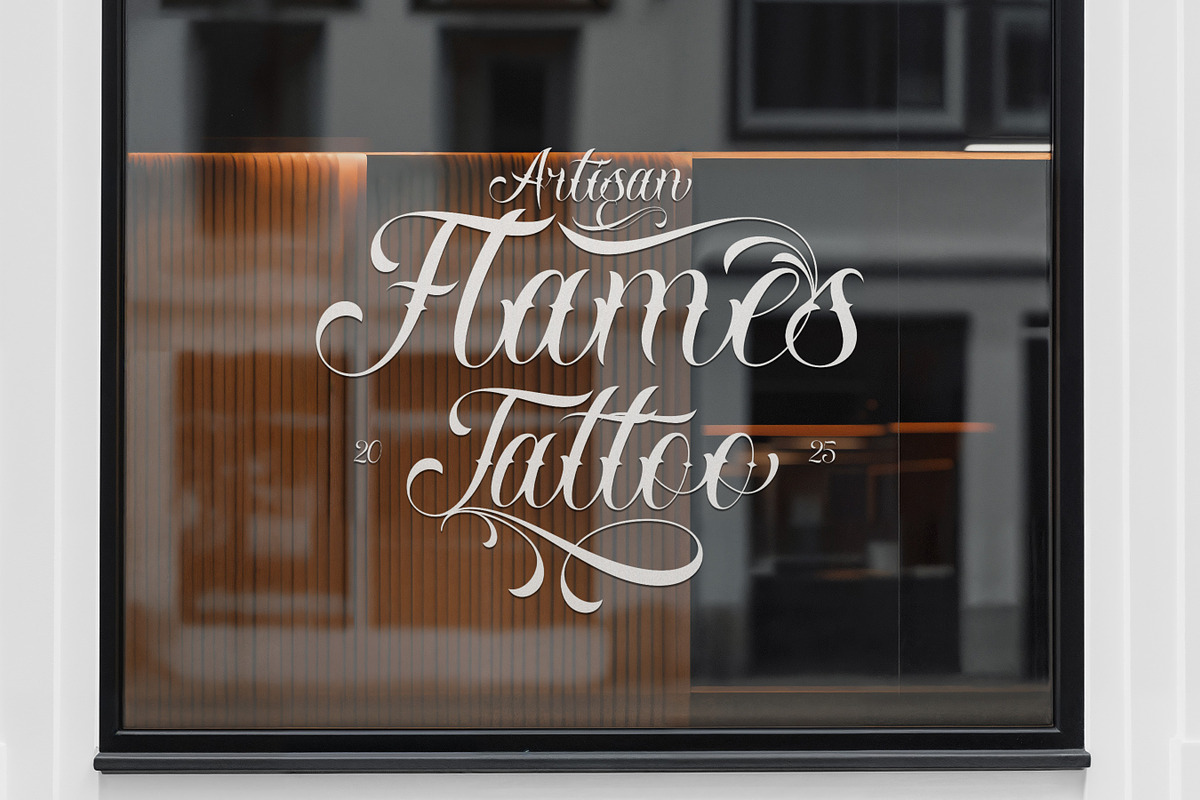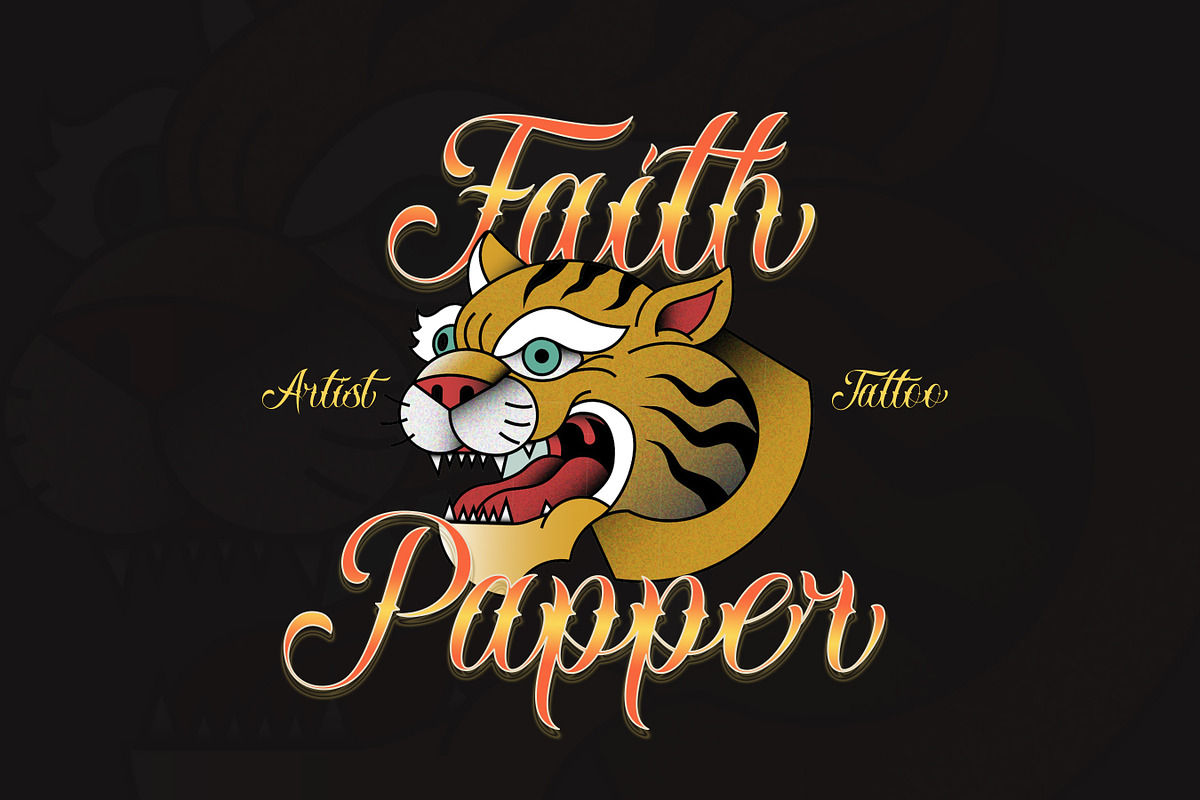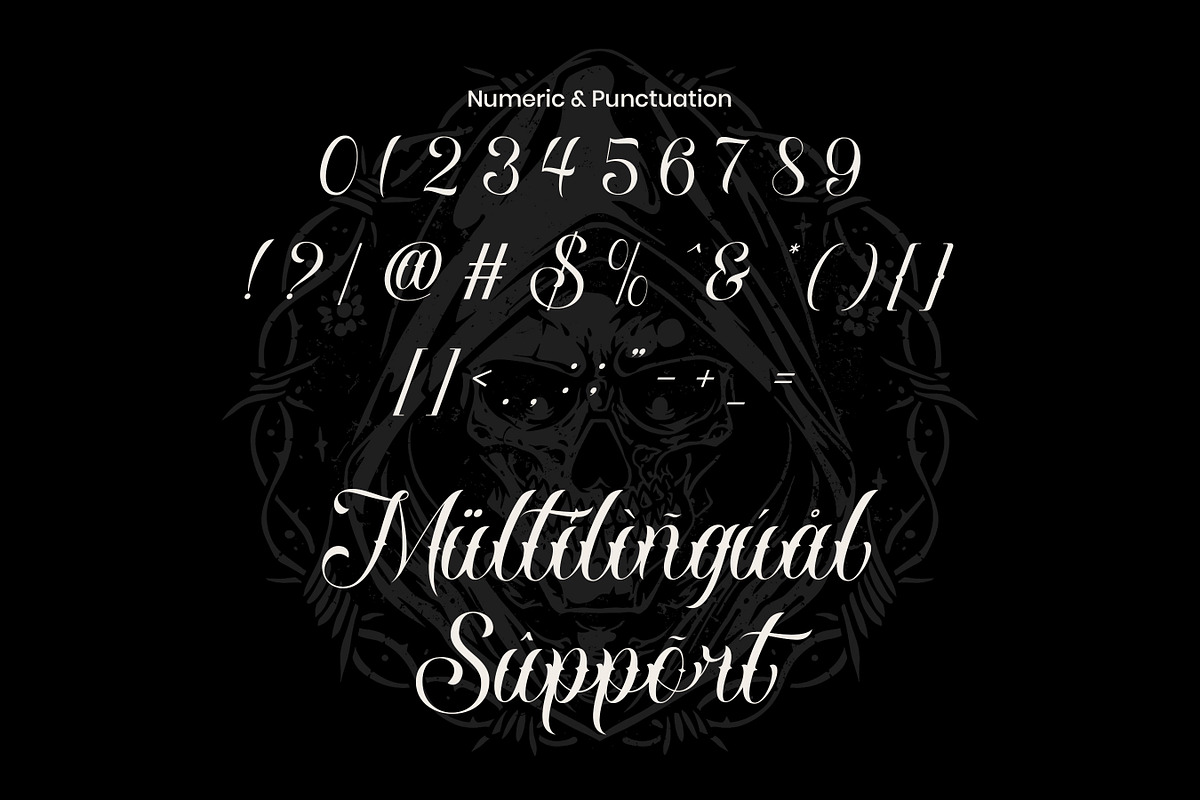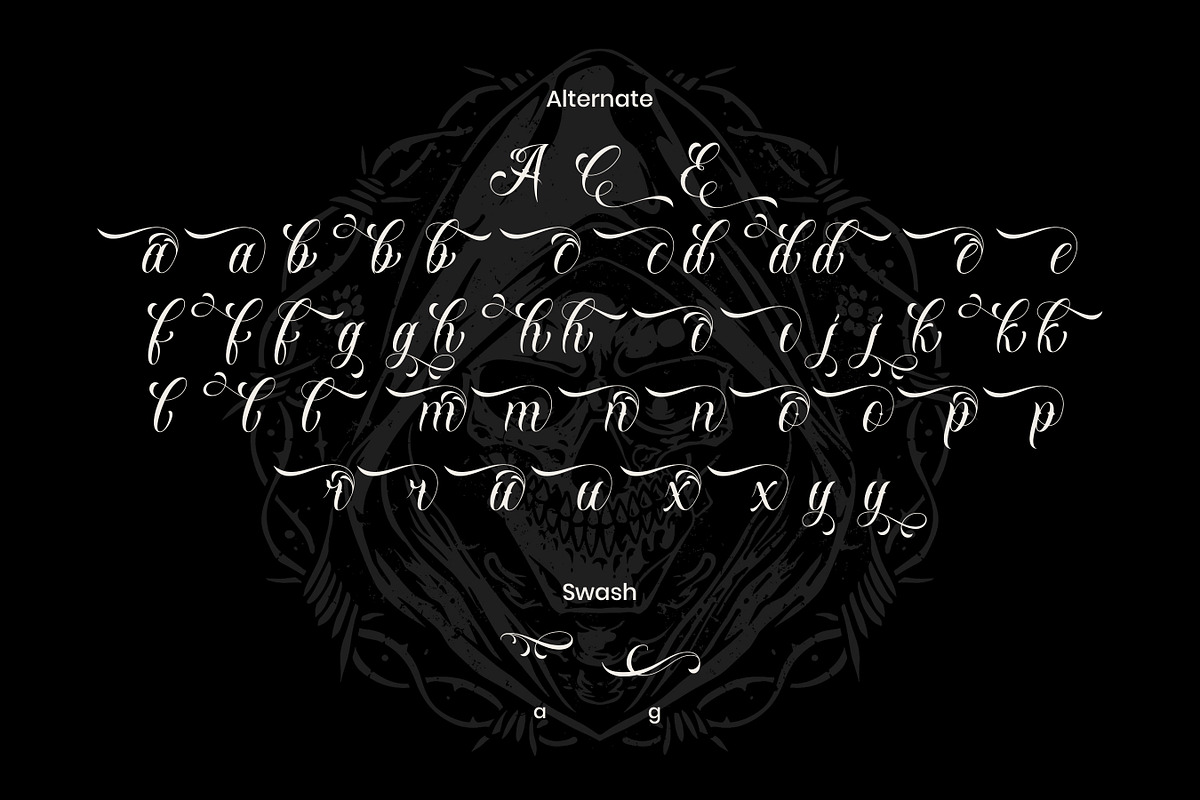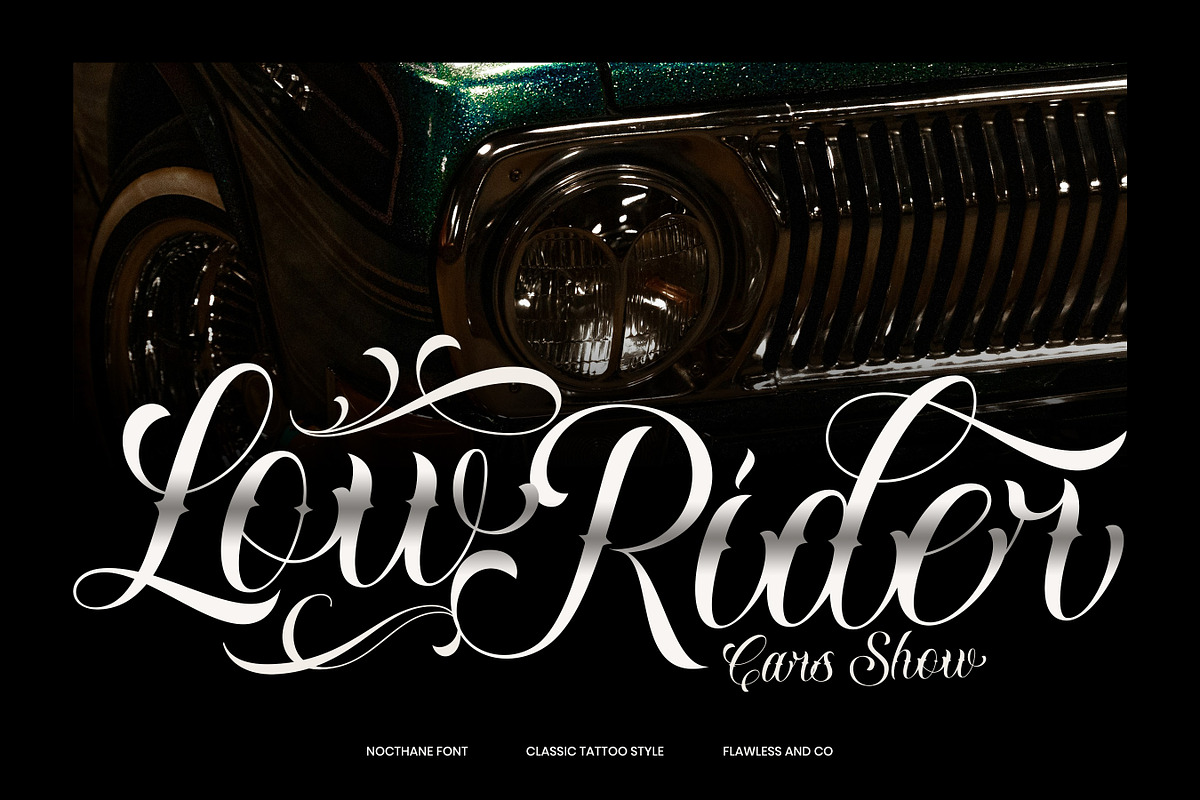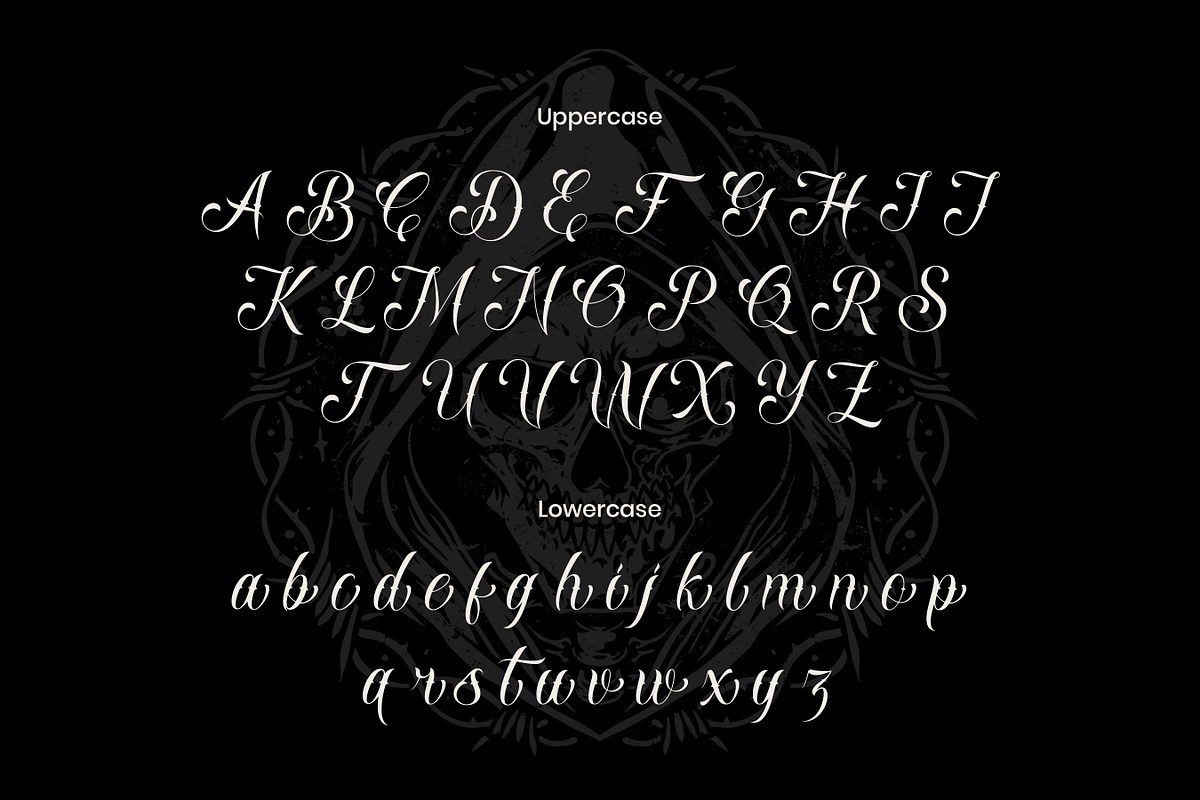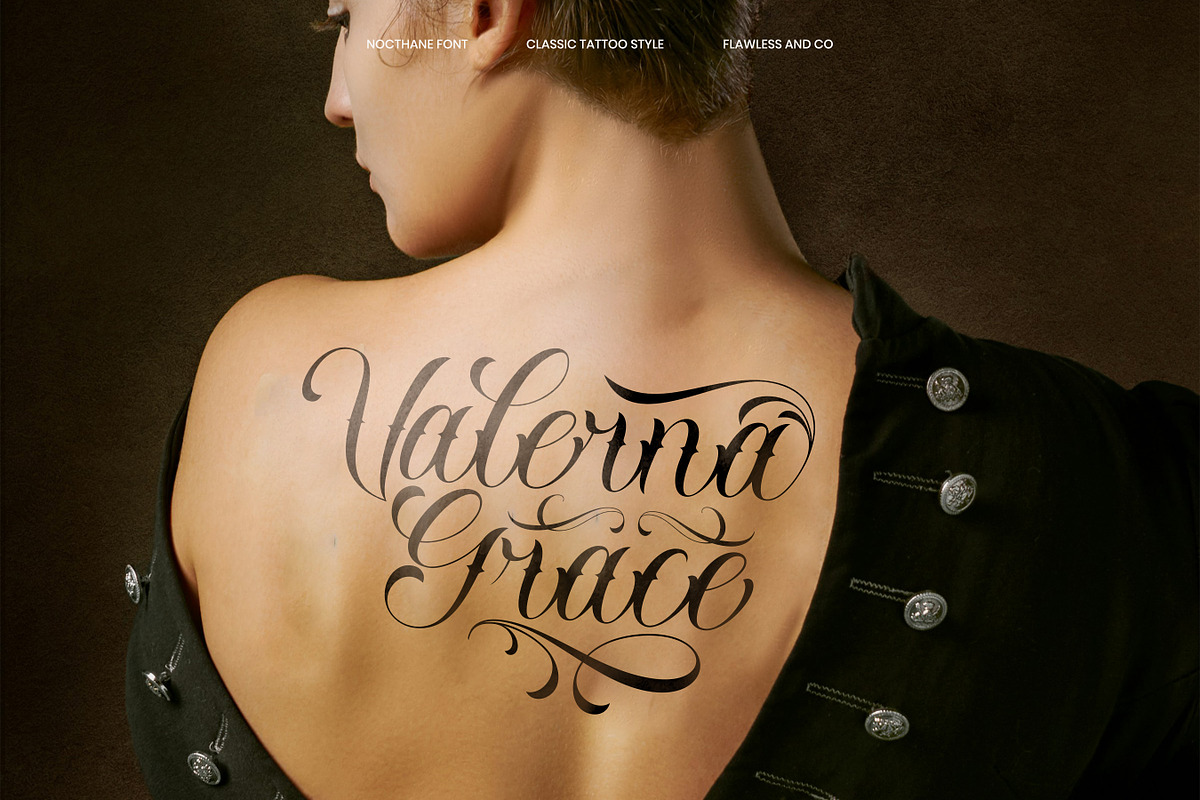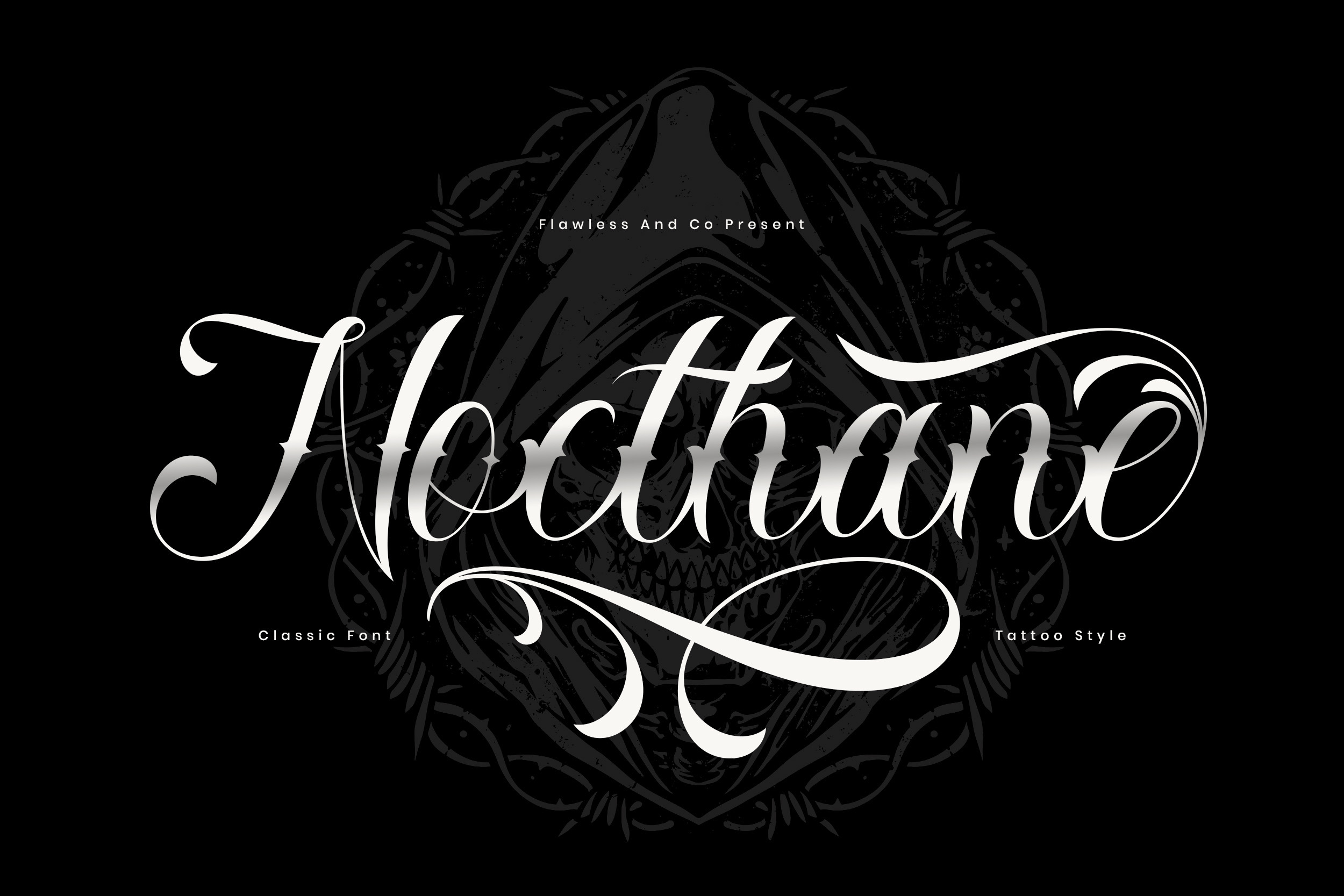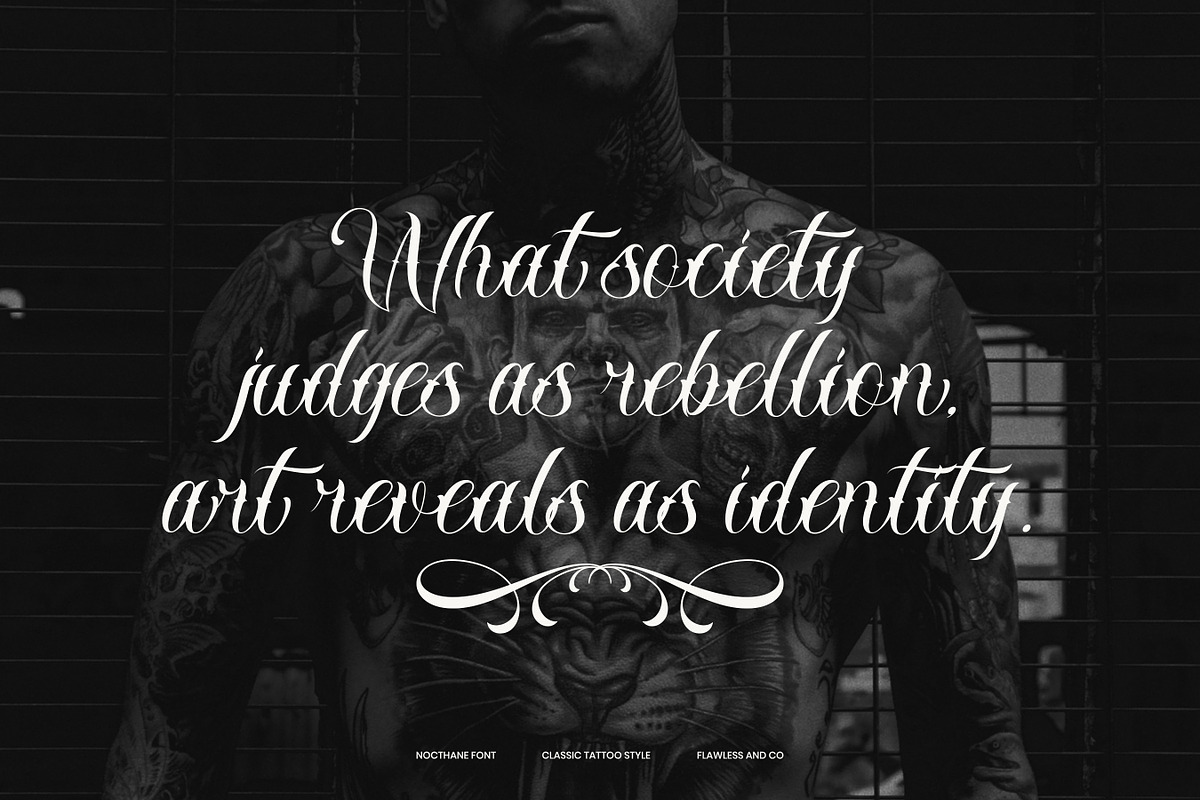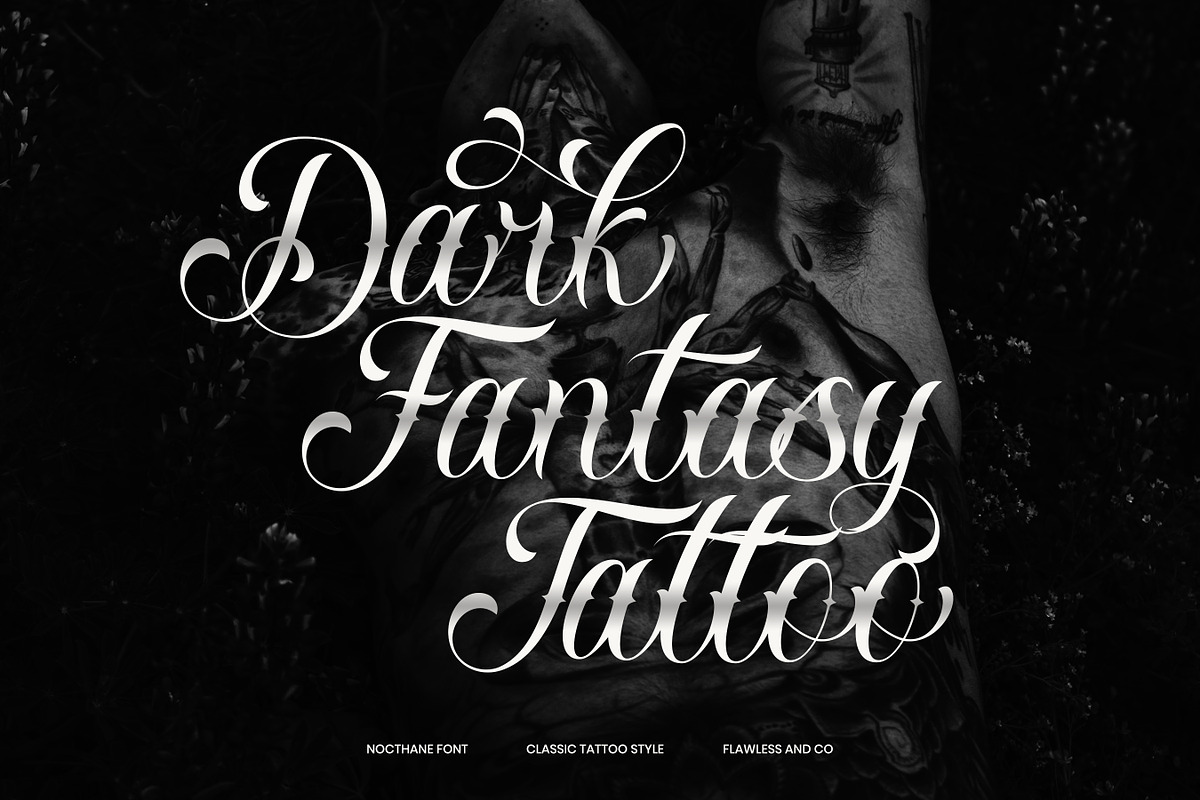
Nocthane - Tatto Style Font
Nocthane is a classic tattoo-style font that brings the bold spirit of traditional ink art into typography. Designed to capture the flow and attitude of tattoo lettering, it combines elegant script forms with sharp, decorative swashes, creating a striking balance between beauty and rebellion. Every curve and stroke in Nocthane is crafted to exude confidence, making it perfect for tattoo-inspired branding, apparel, posters, or creative logo designs that demand a strong personal touch. Whether you’re designing for a tattoo studio, a rock band, or a lifestyle brand, Nocthane helps your visuals stand out with attitude and authenticity.
Who Should Use Nocthane?
Nocthane is made for creatives, tattoo artists, designers, and brands who want to express bold individuality and timeless craftsmanship through their typography.
It’s the perfect choice for:
- Tattoo studios seeking authentic lettering for logos or flash designs
- Apparel and streetwear brands that embrace a bold, vintage aesthetic
- Music and entertainment creatives wanting expressive, edgy titles
- Designers creating posters, packaging, or merchandise with attitude
- Anyone who loves classic tattoo culture and wants that artistic flair in their design projects
A Must-Have Font for "Brand and Logo" Creators and Designers
Nocthane is more than just a tattoo font — it’s a statement of character and craftsmanship. With its bold strokes, elegant swashes, and vintage tattoo charm, Nocthane gives every logo or brand mark a strong artistic identity. Perfect for creatives who want their designs to look powerful, expressive, and unforgettable, this font blends classic tattoo artistry with modern design versatility.
Why Choose Nocthane for "Brand and Logo" Projects?
Nocthane stands out with its unique blend of classic tattoo aesthetics and refined letter craftsmanship. Each curve and flourish is designed to evoke emotion and artistry, making your brand feel bold, timeless, and authentic. Whether used for logos, packaging, apparel, or creative branding, Nocthane delivers a strong visual impact that captures attention and communicates strength with elegance.
Suitable For:
- Tattoo studios and body art branding
- Clothing lines and streetwear labels
- Music album covers and band logos
- Barbershop, motorcycle club, or lifestyle branding
- Posters, signage, and packaging design
- Vintage and retro-inspired projects
- Custom lettering and decorative typography projects